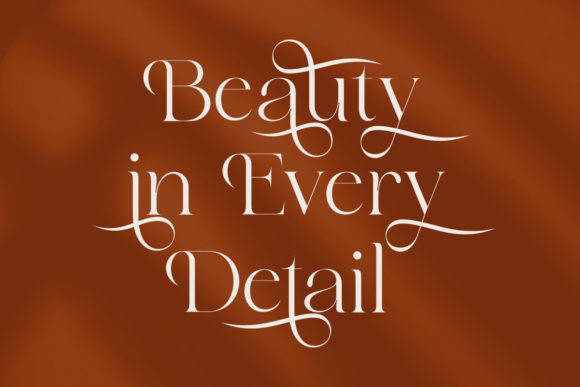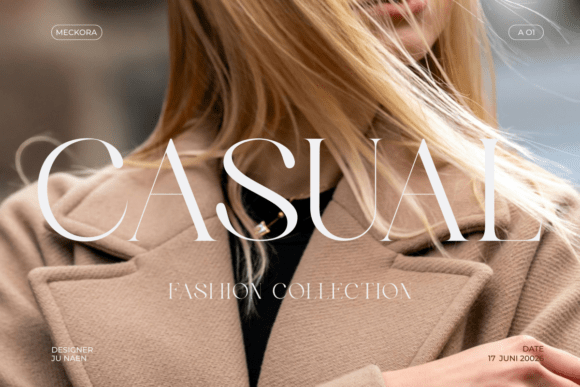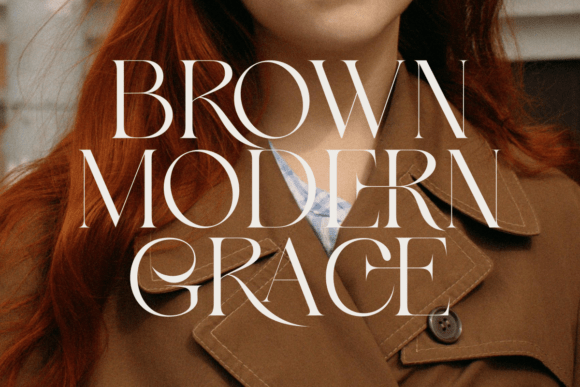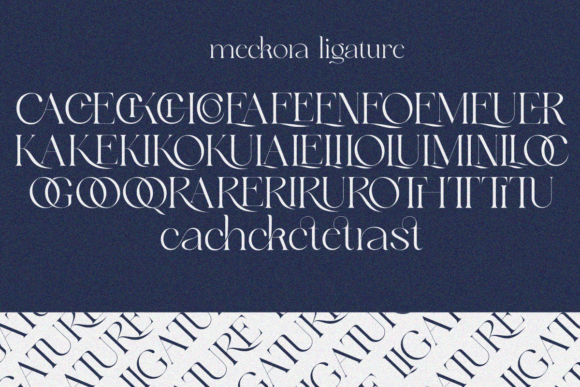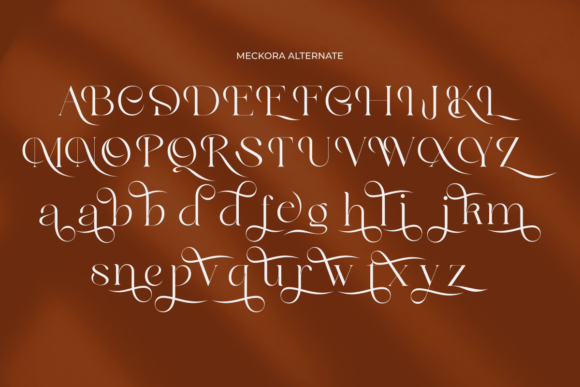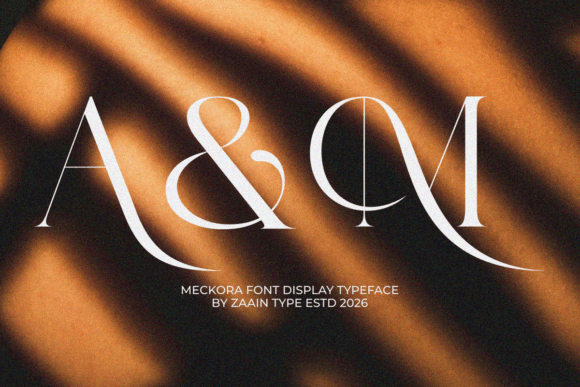
Introduction to Meckora Font
Meckora is a refined serif font that blends timeless elegance with a modern touch.
Designed with graceful curves and sophisticated contrast, Meckora brings a luxurious and stylish feel to every design Perfect for branding, fashion editorials, logos, invitations, cosmetic packaging, and high-end typography, this font delivers beauty, class, and strong visual character in every letter.